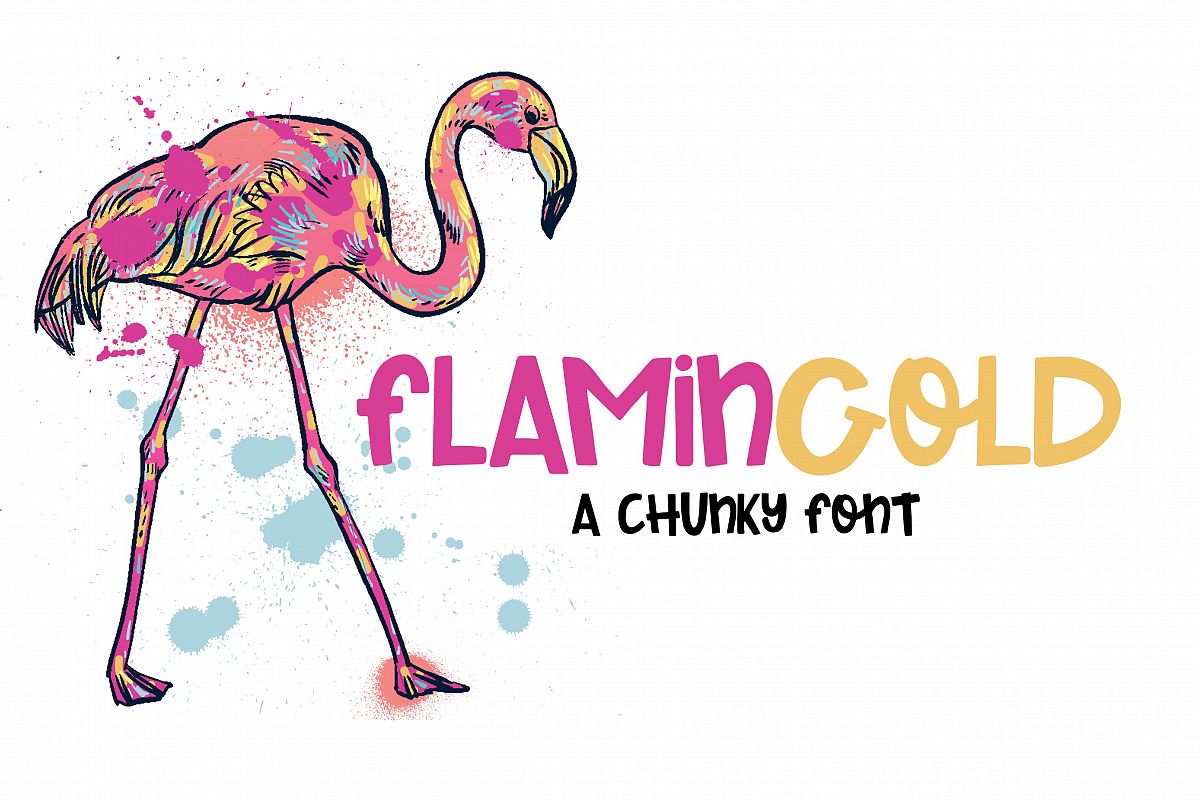
Flamingold - A Chunky Font
My favorite font to date. Flamingold is THE crafters font! This font cuts beautifully on your silhouette or cricut machines!
Includes alphabet, numbers, punctuation and a few extra letter combos!